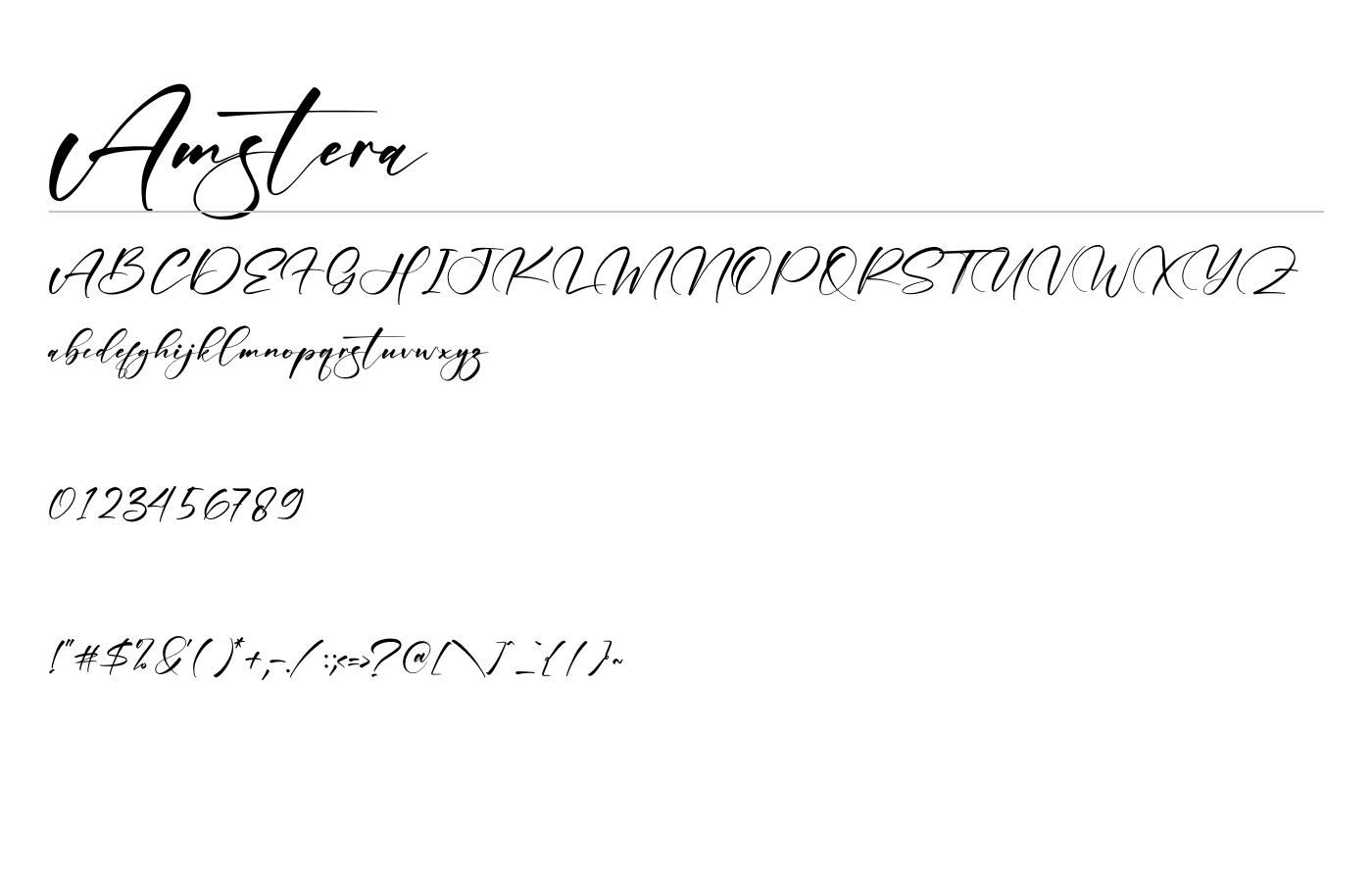
Amstera is an elegant script font featuring fluid, handwritten strokes with a delicate and refined touch. Its slender, flowing letterforms and high contrast between thick and thin lines create a graceful, sophisticated feel, making it perfect for luxury branding, invitations, and stylish headlines where an artistic and personal look is desired.
Amstera Font
About Amstera Font